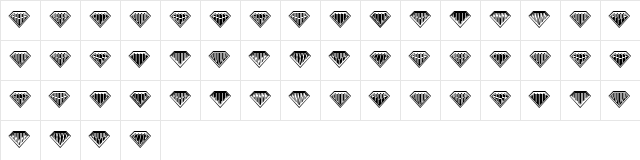
Diamond Monogram Regular
Design Context for Diamond Monogram Typeface
Diamond Monogram uses fixed-width spacing throughout, giving it the structured, systematic character associated with coding environments and technical documentation.
Pro Tip: Use Diamond Monogram with slightly increased line-height for extended reading — fixed-width spacing can feel dense in longer passages without extra breathing room.